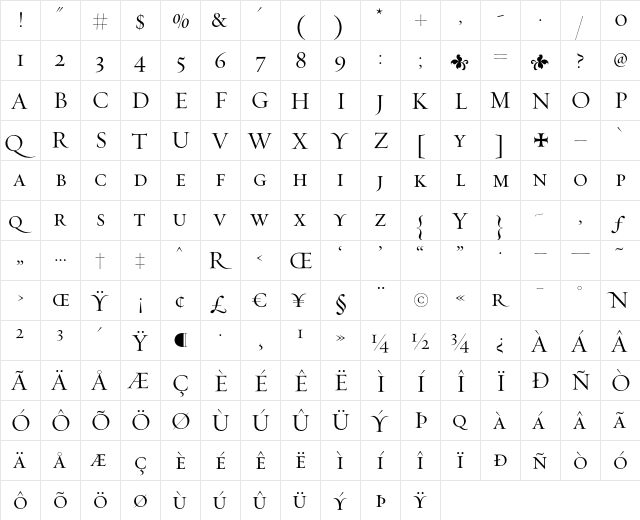
Requiem Display-HTF-SmallCaps
Design Context for Requiem Typeface
Requiem brings ornamental detail and strong personality to headlines and identities, where visual impact matters more than quiet functionality.
Font Pairing: Pair with a clean neutral sans-serif for body copy to let Requiem's character lead without overwhelming the composition.
Pro Tip: Treat Requiem as the centrepiece of your typographic hierarchy. One strong heading set in a decorative face can carry an entire layout.